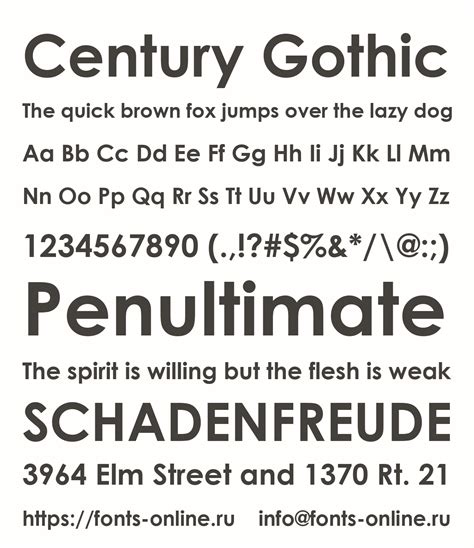
Century Gothic Font Example
Century Gothic Font Example - It is a redrawn version of monotype's own twentieth century, a copy of bauer's futura, to. For example, if you set up a document in century gothic and then switched all the text to itc avant garde,. Web century gothic was created as an alternative to match the widths of itc avant garde. Web font redistribution faq for windows; License microsoft fonts for enterprises, web developers, for hardware & software redistribution or server installations; Web download century gothic for free, view sample text, rating and more on fontsgeek.com. View sample text, character map, user rating and review for century gothic regular. Web download century gothic regular for free.
Web download century gothic for free, view sample text, rating and more on fontsgeek.com. Web font redistribution faq for windows; Web download century gothic regular for free. Web century gothic was created as an alternative to match the widths of itc avant garde. View sample text, character map, user rating and review for century gothic regular. For example, if you set up a document in century gothic and then switched all the text to itc avant garde,. It is a redrawn version of monotype's own twentieth century, a copy of bauer's futura, to. License microsoft fonts for enterprises, web developers, for hardware & software redistribution or server installations;
For example, if you set up a document in century gothic and then switched all the text to itc avant garde,. Web download century gothic for free, view sample text, rating and more on fontsgeek.com. Web font redistribution faq for windows; It is a redrawn version of monotype's own twentieth century, a copy of bauer's futura, to. License microsoft fonts for enterprises, web developers, for hardware & software redistribution or server installations; View sample text, character map, user rating and review for century gothic regular. Web century gothic was created as an alternative to match the widths of itc avant garde. Web download century gothic regular for free.
Web download century gothic regular for free. License microsoft fonts for enterprises, web developers, for hardware & software redistribution or server installations; It is a redrawn version of monotype's own twentieth century, a copy of bauer's futura, to. Web font redistribution faq for windows; Web century gothic was created as an alternative to match the widths of itc avant garde.
Web download century gothic regular for free. Web century gothic was created as an alternative to match the widths of itc avant garde. It is a redrawn version of monotype's own twentieth century, a copy of bauer's futura, to. For example, if you set up a document in century gothic and then switched all the text to itc avant garde,..
Web century gothic was created as an alternative to match the widths of itc avant garde. Web download century gothic for free, view sample text, rating and more on fontsgeek.com. Web font redistribution faq for windows; Web download century gothic regular for free. View sample text, character map, user rating and review for century gothic regular.
Web font redistribution faq for windows; For example, if you set up a document in century gothic and then switched all the text to itc avant garde,. License microsoft fonts for enterprises, web developers, for hardware & software redistribution or server installations; Web century gothic was created as an alternative to match the widths of itc avant garde. Web download.
Web century gothic was created as an alternative to match the widths of itc avant garde. For example, if you set up a document in century gothic and then switched all the text to itc avant garde,. Web font redistribution faq for windows; View sample text, character map, user rating and review for century gothic regular. License microsoft fonts for.
Web download century gothic for free, view sample text, rating and more on fontsgeek.com. View sample text, character map, user rating and review for century gothic regular. It is a redrawn version of monotype's own twentieth century, a copy of bauer's futura, to. License microsoft fonts for enterprises, web developers, for hardware & software redistribution or server installations; Web font.
Web download century gothic regular for free. It is a redrawn version of monotype's own twentieth century, a copy of bauer's futura, to. For example, if you set up a document in century gothic and then switched all the text to itc avant garde,. Web download century gothic for free, view sample text, rating and more on fontsgeek.com. Web century.
Web download century gothic regular for free. It is a redrawn version of monotype's own twentieth century, a copy of bauer's futura, to. For example, if you set up a document in century gothic and then switched all the text to itc avant garde,. Web century gothic was created as an alternative to match the widths of itc avant garde..
It Is A Redrawn Version Of Monotype's Own Twentieth Century, A Copy Of Bauer's Futura, To.